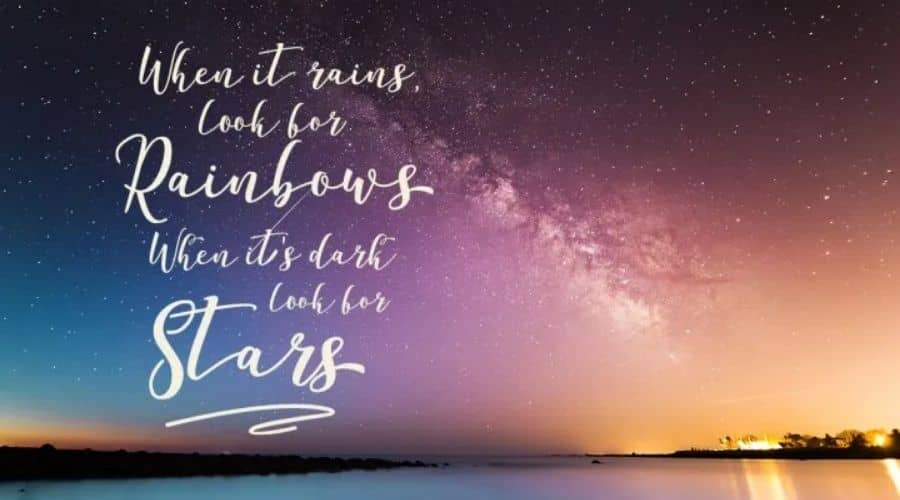
Declara Script Font Free
Declara Script Font is now available! Khurasan created and shared the Declara Script. Declara Script is a lovely handwritten script font with modern calligraphy and a new look. The Font was uploaded on January 29, 2018. Declara Script Font is a Personal Use Only Font. Starting with uppercase, lowercase, Numeric, and certain Special character and alternatives, fonts are available.
This typeface is PUA encoded. This typeface can be used in a variety of languages. Afrikaans, Albanian, Catalan, Croatian, Czech, Danish, Dutch, English, Estonian, Finnish, French, German, Hebrew, Hungarian, Icelandic, Italian, Latvian, Lithuanian, Maltese, Norwegian, Polish, Portuguese, Romanian, Slovak, Slovenian, English, Swedish, Turkish, Yiddish, and Zulu are some of the languages supported by the Font.
Declara Script Font is ideal for logos, branding, invites, stationery, wedding designs, logos, business cards, covers, t-shirts, social media posts, and more. It will also be utilized to generate a stunning image and text in a variety of colours and styles. Any color can be used with this Script and Handwritten Font. Any endeavour, personal or professional, looks fantastic with this typeface. Citations in any book will appear fantastic with this typeface. Any form of greeting card will look great with this typeface.